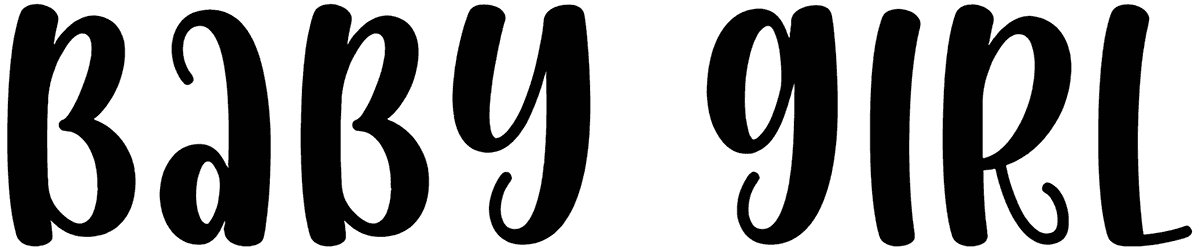
Baby Girl Display Font
Cartoon fonts can always give a cheerful and fun makeover to your texts, and Baby Girl Display font is no exception. This baby font has an upbeat and childish design with cartoony characters. You can use it for children’s product names and packaging, kid-friendly event, sale, or party banners and flyers.
The eye-catching bold look of the elements makes it hard to ignore your styled words, but just not that the lowercase set is not complete.